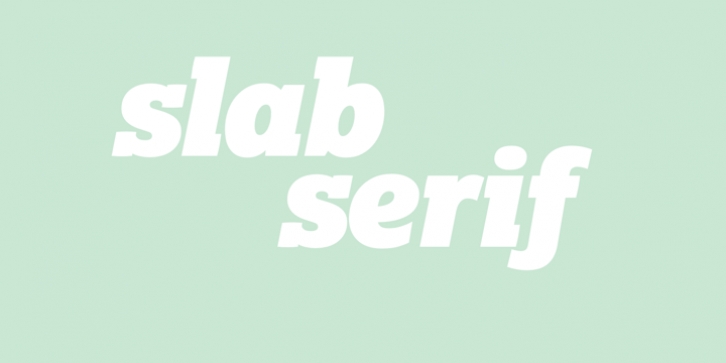
Lexia was designed by Ron Carpenter and published by Dalton Maag. Lexia contains 14 styles and family package options.
Whether as body copy or display text, the Lexia font family's extended range of weights makes it remarkably versatile. It is a contemporary slab-serif font family, drawing its strength from the traditional typographic values of harmonious proportions and high-quality craftsmanship. The smallest details, like subtly curved serifs and open character shapes, give Lexia a warm, friendly feel. Although the font family is replete with design detail, there is nothing superfluous. Lexia adheres to the principle of form following function with the design of each style, even in the most extreme weights, carefully considered for its purpose and crafted accordingly. The greatest testament to this functionality-led approach is Lexia's generous x-height which allows for setting at the smallest sizes without compromising Lexia's superlative legibility.